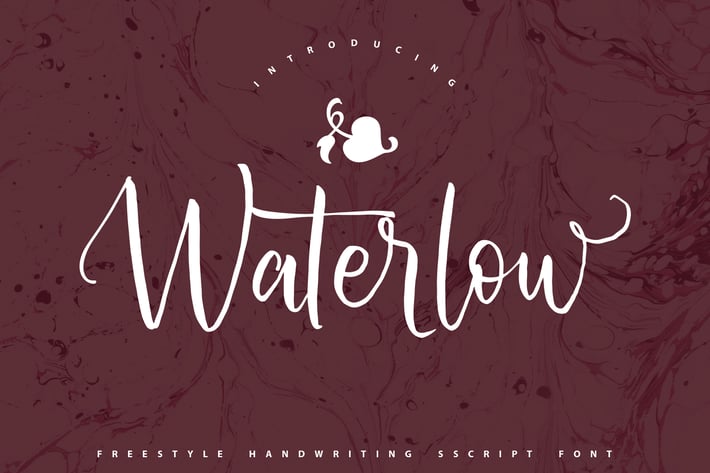
Waterlow | Handwriting Script Font
Waterlow | Handwriting Script Font with a calligraphy style, So beautiful on invitation like greeting cards, branding materials, business cards, quotes, posters, and more!